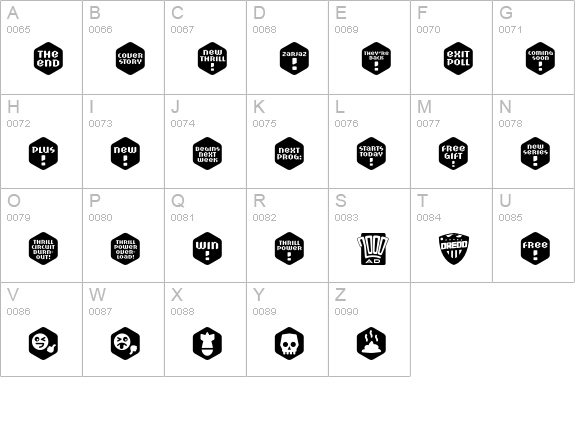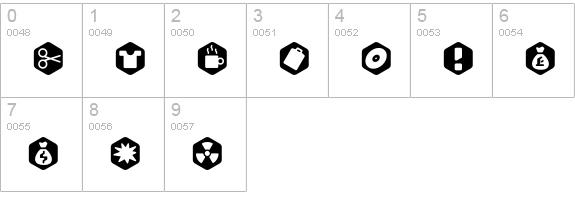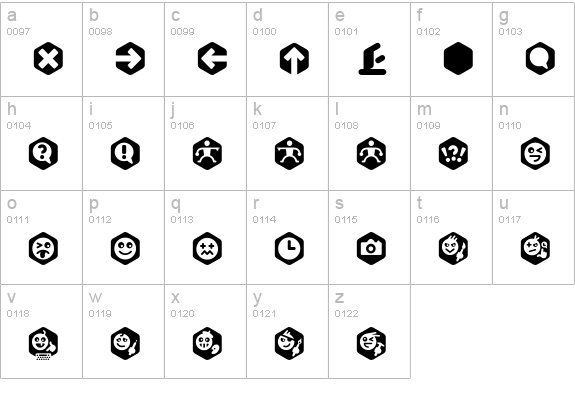
ScrotnigHexes Font Details
Introducing ScrotnigHexes font, a captivating typeface that will leave a lasting impression on any design project. With its unique and intricate hexagonal shapes, ScrotnigHexes is the perfect blend of modern and edgy, making it ideal for a wide range of creative endeavors. This font's versatility knows no bounds, as it seamlessly transitions from bold headlines to elegant body text, ensuring that your message is always conveyed with the utmost clarity and style. Each letter is carefully crafted, with sharp angles and clean lines that exude a sense of precision and sophistication. But what truly sets ScrotnigHexes font apart is its availability. As a testament to our commitment to the design community, this remarkable font is freely available to download at FontsMarket.com. Now, you can enhance your projects with this captivating typeface without any cost constraints, allowing your creativity to soar to new heights. Whether you're a professional designer, a student, or simply someone who appreciates the beauty of typography, ScrotnigHexes font is a must-have in your font library. Its modern aesthetic and timeless appeal make it suitable for a myriad of applications, including branding, packaging, posters, websites, and so much more. Discover the limitless possibilities that ScrotnigHexes font offers, as it effortlessly transforms any design into a visual masterpiece. Don't miss out on this incredible opportunity to elevate your projects with a font that not only captivates but also empowers your message. So why wait? Visit FontsMarket.com today and unlock the potential of ScrotnigHexes font. Download it for free and let your creativity flourish like never before.